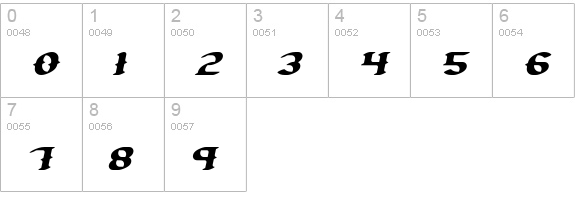
Gesture Slant BRK is a unique and modern font that adds a touch of creativity and sophistication to any project. The slanted design of the characters gives it a dynamic and energetic look, making it perfect for titles, headlines, and branding materials. This font is versatile and can be used for both digital and print designs, adding a stylish flair to your creations. What's even better is that Gesture Slant BRK is available for free download at FontsMarket.com. This means you can easily access this eye-catching font and use it in your projects without any cost. So why wait? Add Gesture Slant BRK to your font collection today and elevate your designs with its contemporary and bold aesthetic.